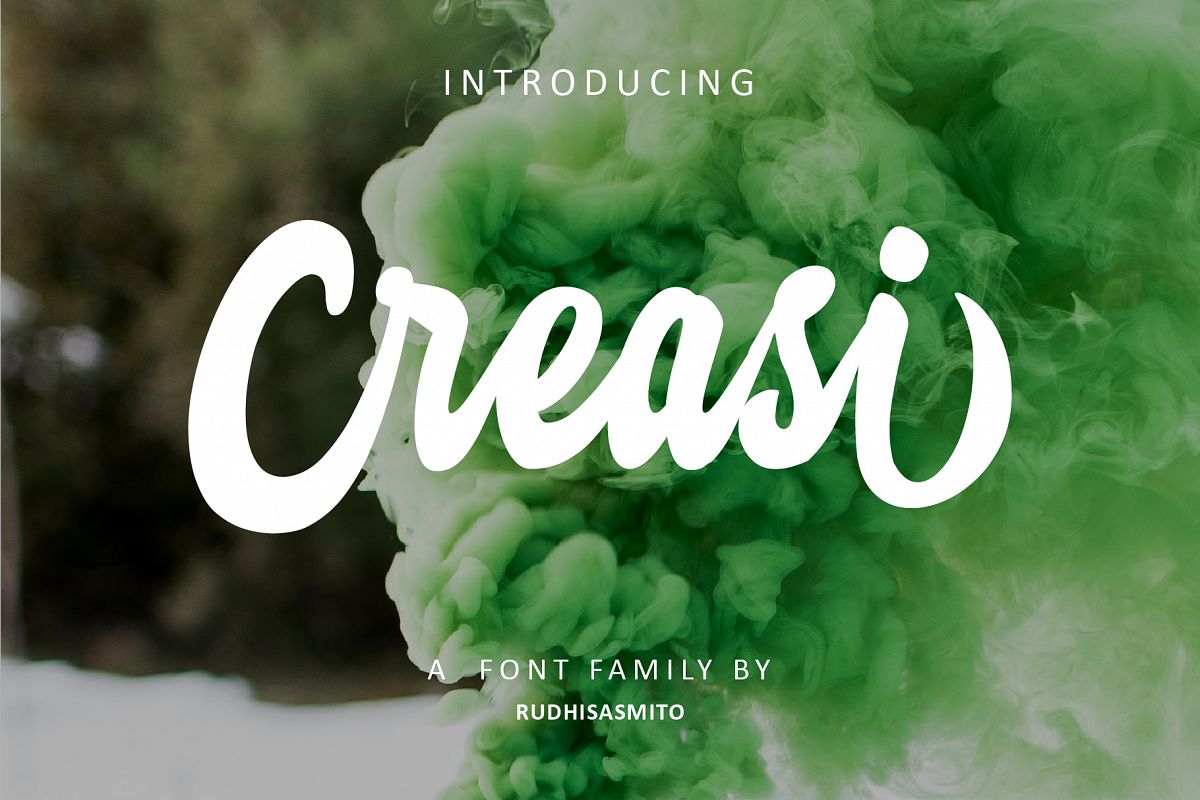
Creasi Script
Creasi Script is a modern calligraphy font. Creasi a beautiful for signatures, logos, wedding invitations, website, headline, letterheads, nameplate, labels, bulletins, posters, quotes, badges, branding, greeting Cards, etc. and all project design other. Creasi comes with elegant style. It contains a full set of uppercase letters, lowercase letters, alternate lowercase letters, a large range of punctuation, and numerals.